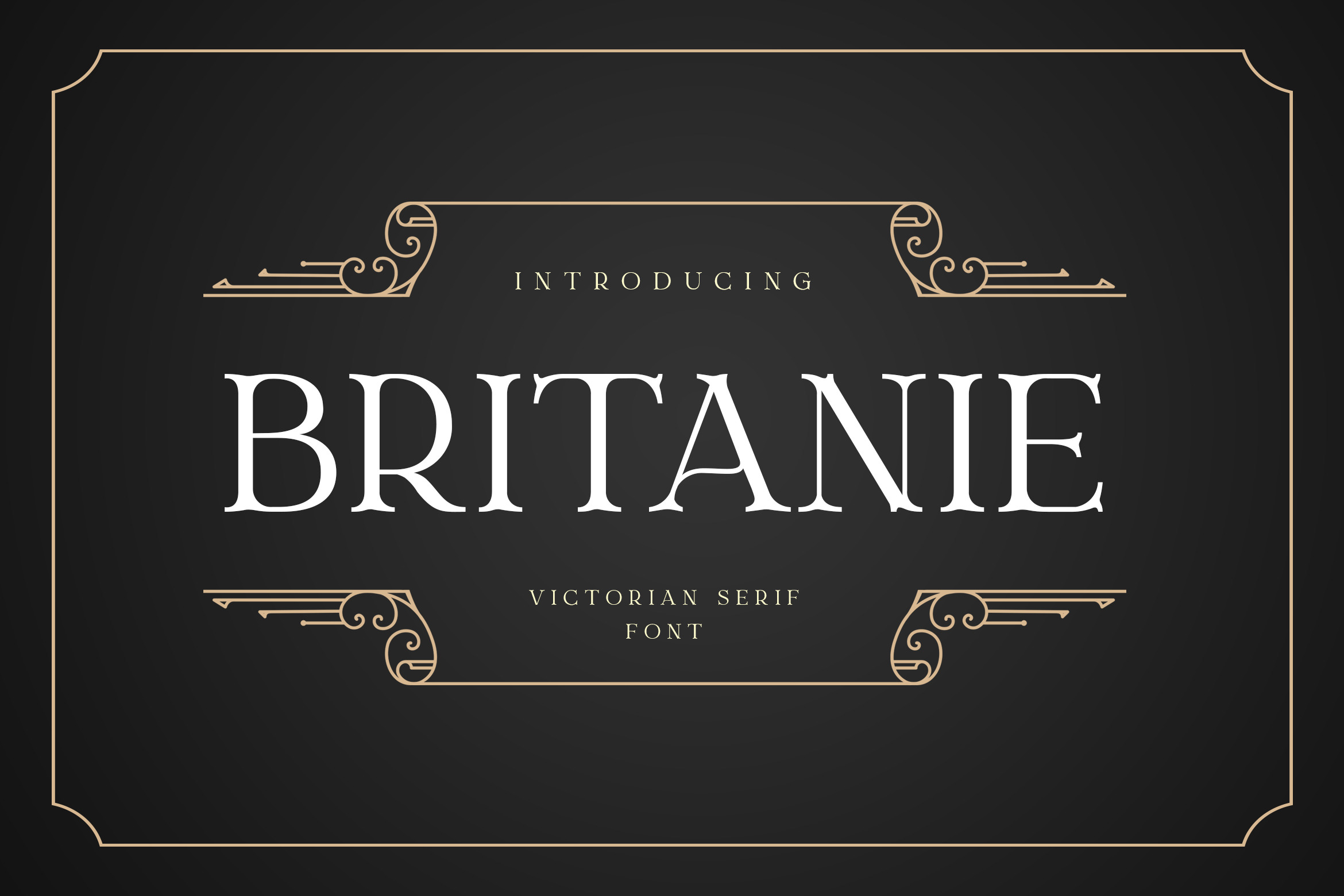
BRITANIE Vectorian Serif Font
BRITANIE is Serif Font and also has vintage display font. It can make it easier to convey the message in your design. Use for awesome display, labeling, clothing, movie screen, poster, movie title, gigs, album covers, headlines magazine, logos, and much more. It's also could be good for both fun and semi-formal text.